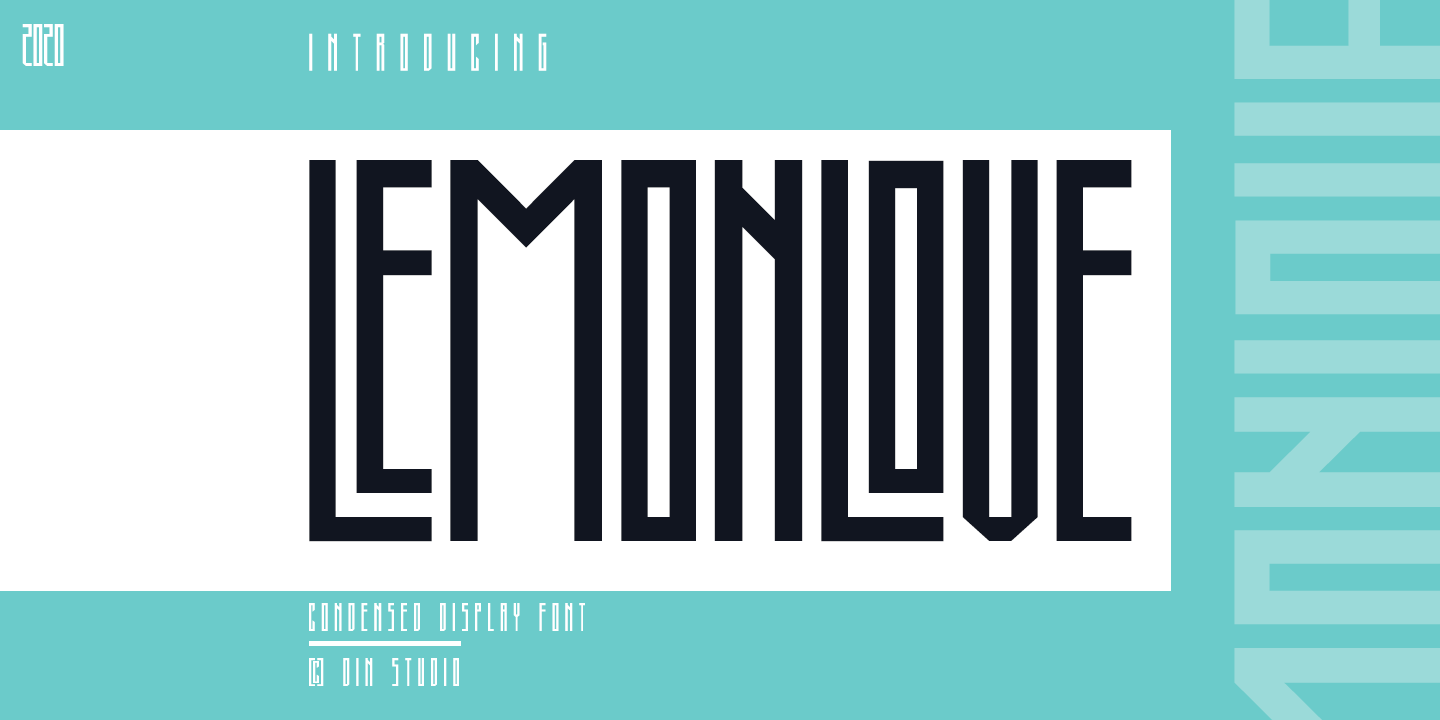
Lemonlove Font is perfect for citrus beverage branding, fresh fruit market signage, summer lifestyle campaigns, zesty restaurant menus, organic lemonade stands, vibrant juice bar communications, sunny outdoor events, cheerful vitamin packaging, refreshing spa treatments, and bright wellness product marketing.
What makes Lemonlove Font exciting is its zesty sweetness that perfectly captures the refreshing energy and sunny disposition found in citrus-fresh experiences and vitamin-rich lifestyle choices. This typeface features bright letterforms with citrus-inspired proportions and sunny details that evoke the invigorating freshness and natural vitality of fresh lemons and sunshine-filled moments. The font's refreshing personality and citrus authenticity make it ideal for fresh lifestyle brands seeking to convey energy, vitality, and the zesty refreshment that comes from natural citrus goodness and sunny outdoor living.
Lemonlove Font family includes bright weight variations and citrus alternatives that enhance its fresh appeal while providing design flexibility for beverage and wellness applications. The font features zesty ligatures, citrus-themed ornaments, and refreshing character variations that create authentic sunshine atmosphere for fresh beverage and wellness branding.
Beverage companies and wellness brands consistently choose Lemonlove Font Free Download for projects requiring authentic citrus appeal and fresh credibility. The font's zesty character excels in applications targeting health-conscious consumers, fresh beverage enthusiasts, and sunny lifestyle seekers who appreciate genuine natural freshness and vitamin-rich living. Whether you're designing for juice bars, wellness products, or fresh beverage brands, this invigorating typeface delivers the citrus authenticity and sunny energy that resonates with audiences seeking genuine freshness and the zesty vitality that defines healthy citrus living and natural wellness excellence.